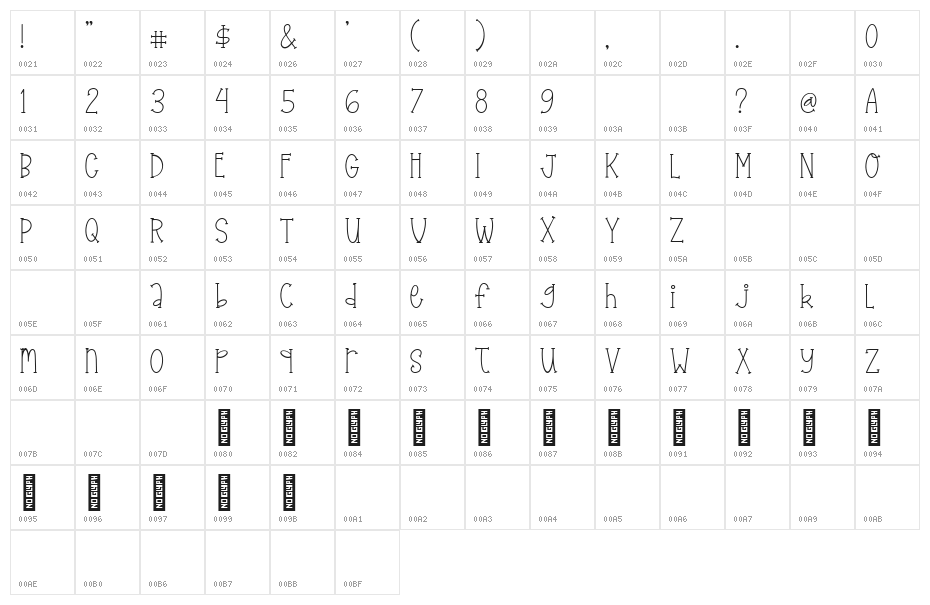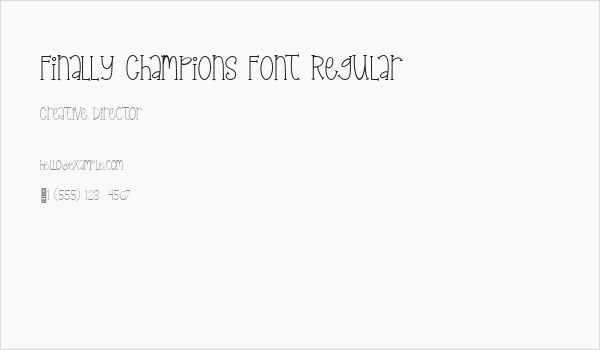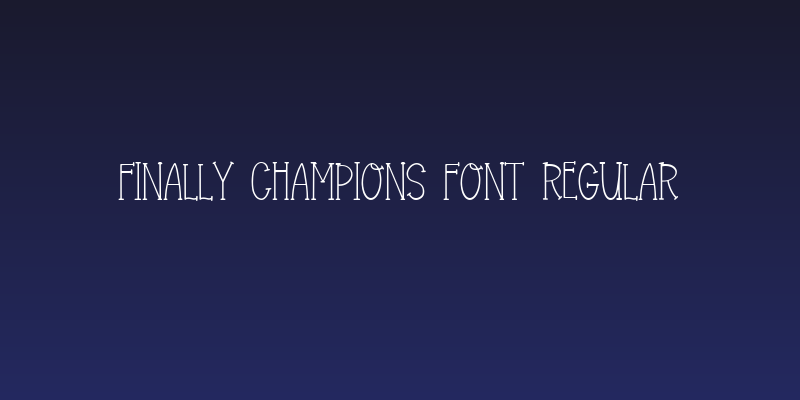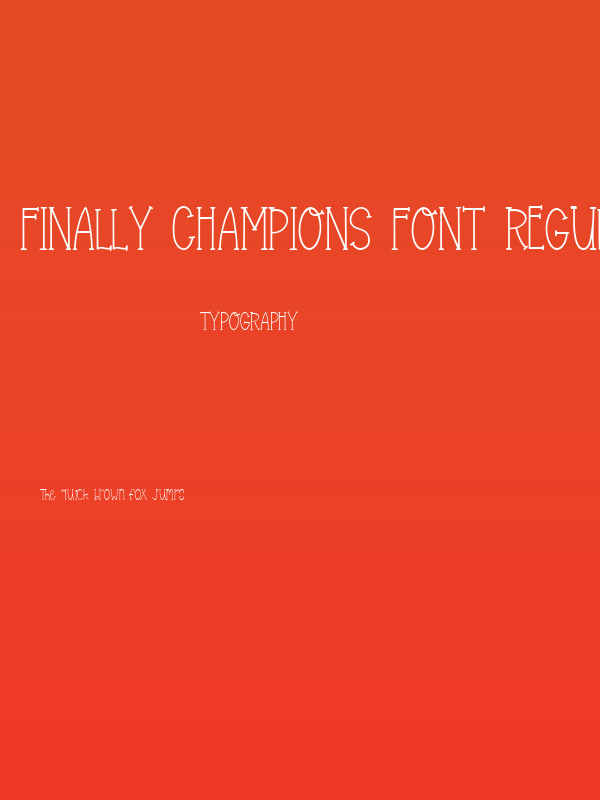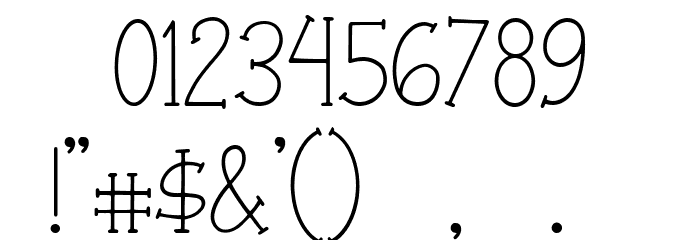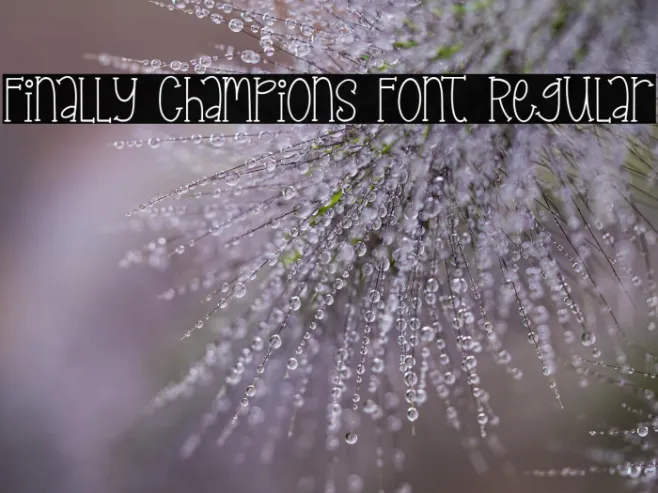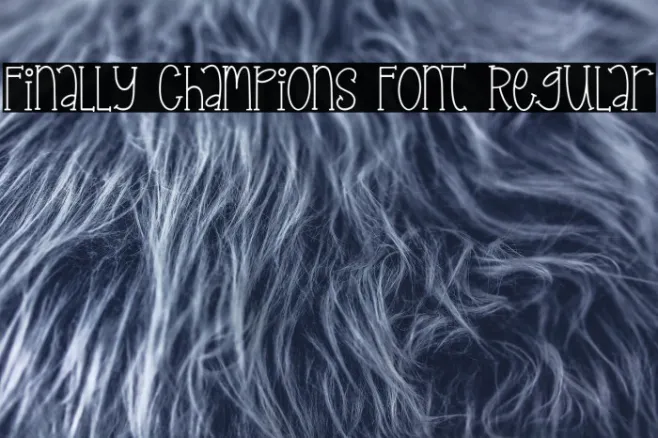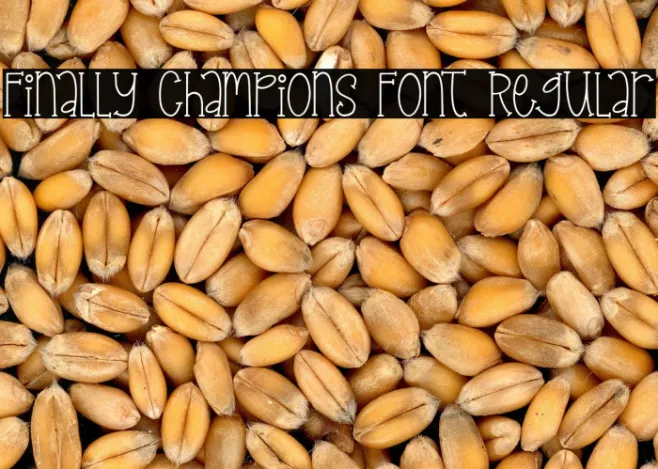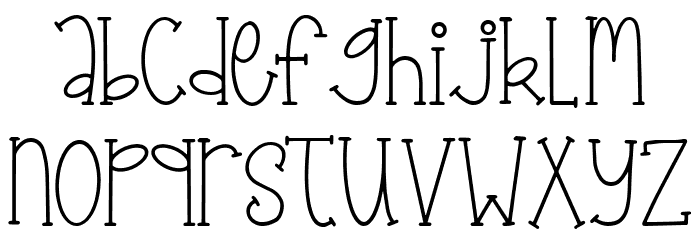
This font features a whimsical and playful design, characterized by its tall, narrow letters with a hand-drawn appearance. The strokes are consistent in width, giving it a uniform look, while the curves and loops add a touch of elegance and charm. The uppercase letters are distinct with elongated forms, while the lowercase letters maintain a quirky style with unique flourishes. Numbers and special characters follow the same playful theme, making it suitable for creative and informal projects.
| Width | Condensed |
| Overall Style | Playful, Whimsical |
| Use Case | Logos, Headlines, Posters |
| Proposed Projects | Ideal for children's books, greeting cards, playful branding, and creative posters. |